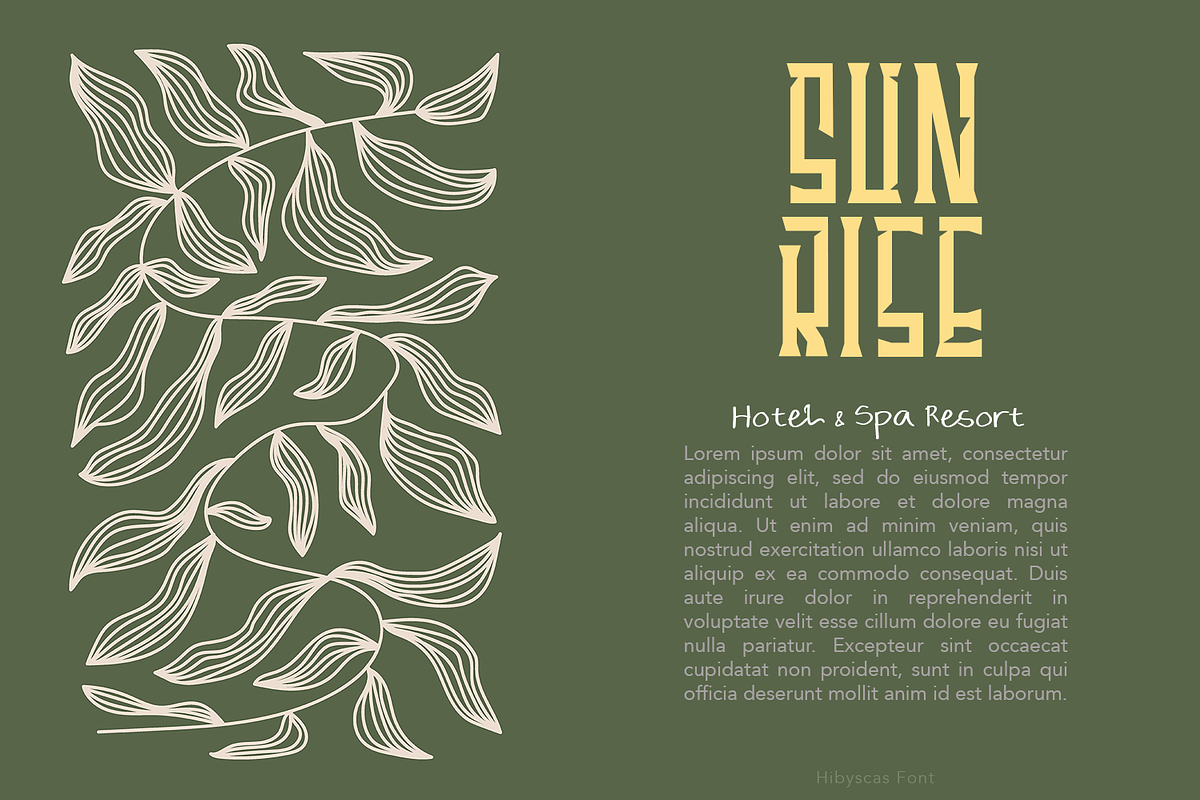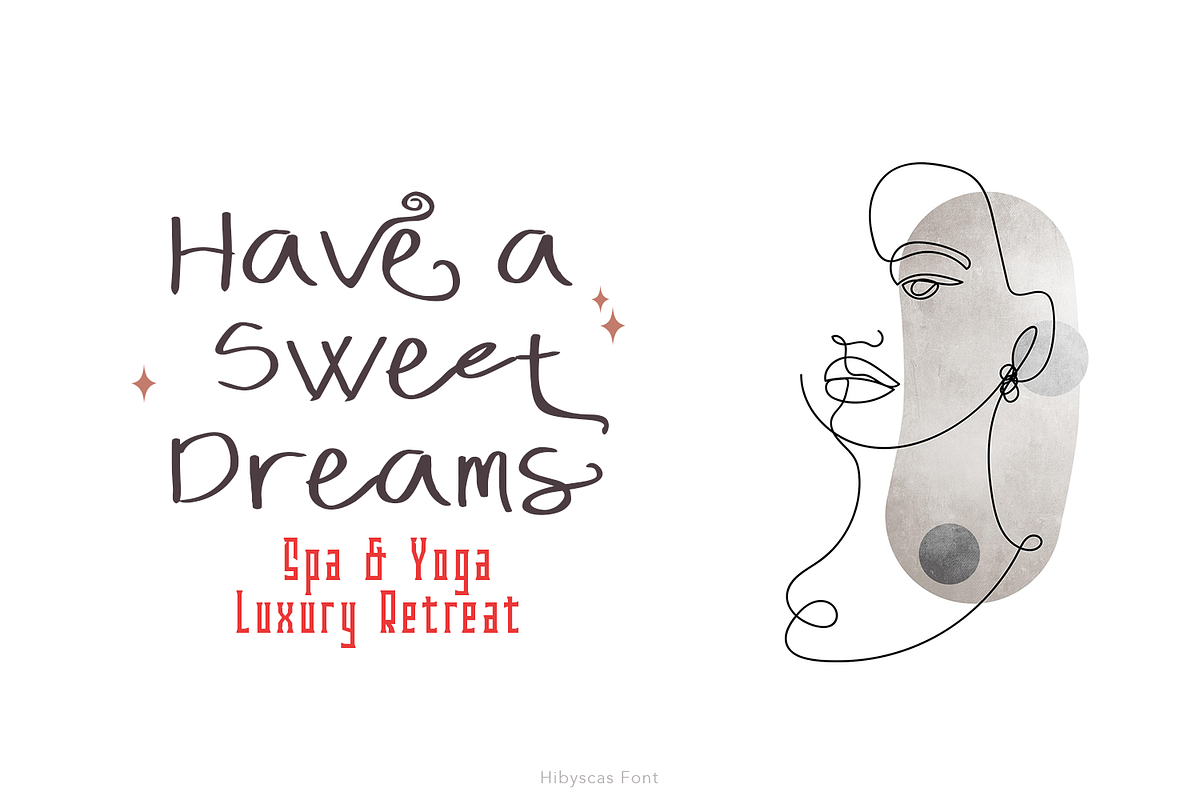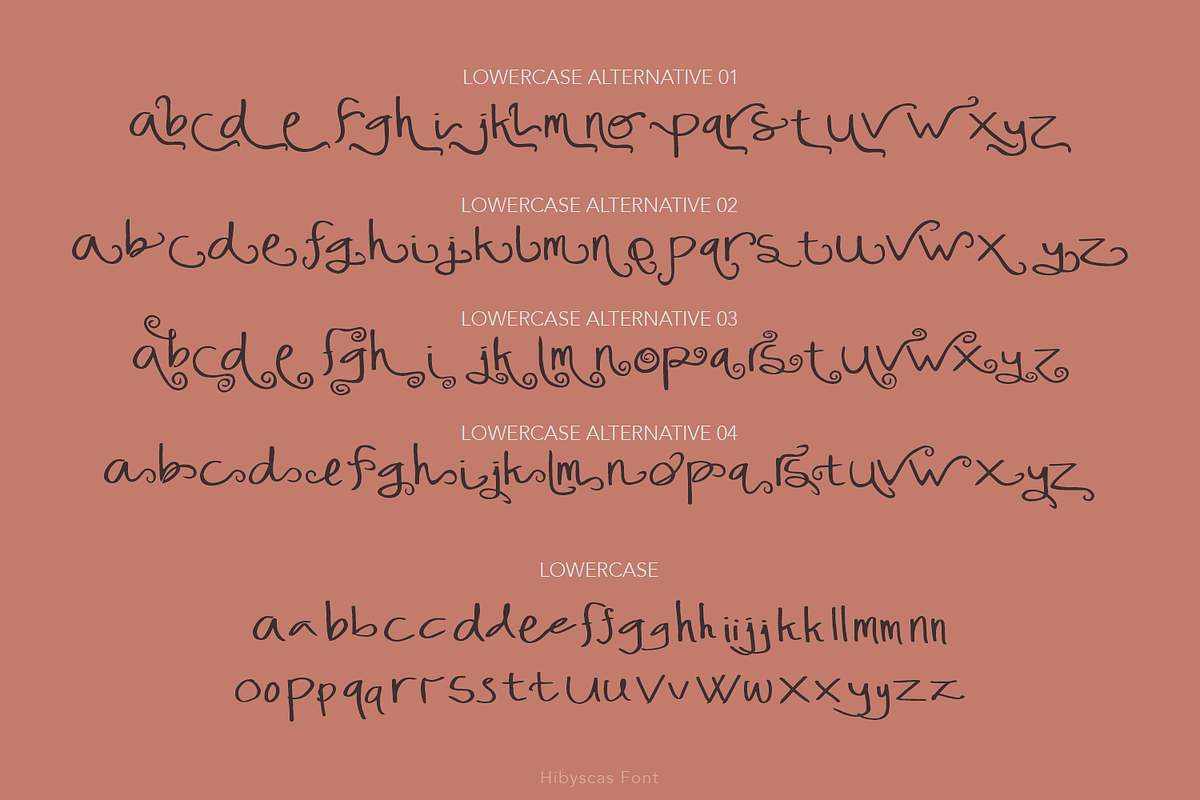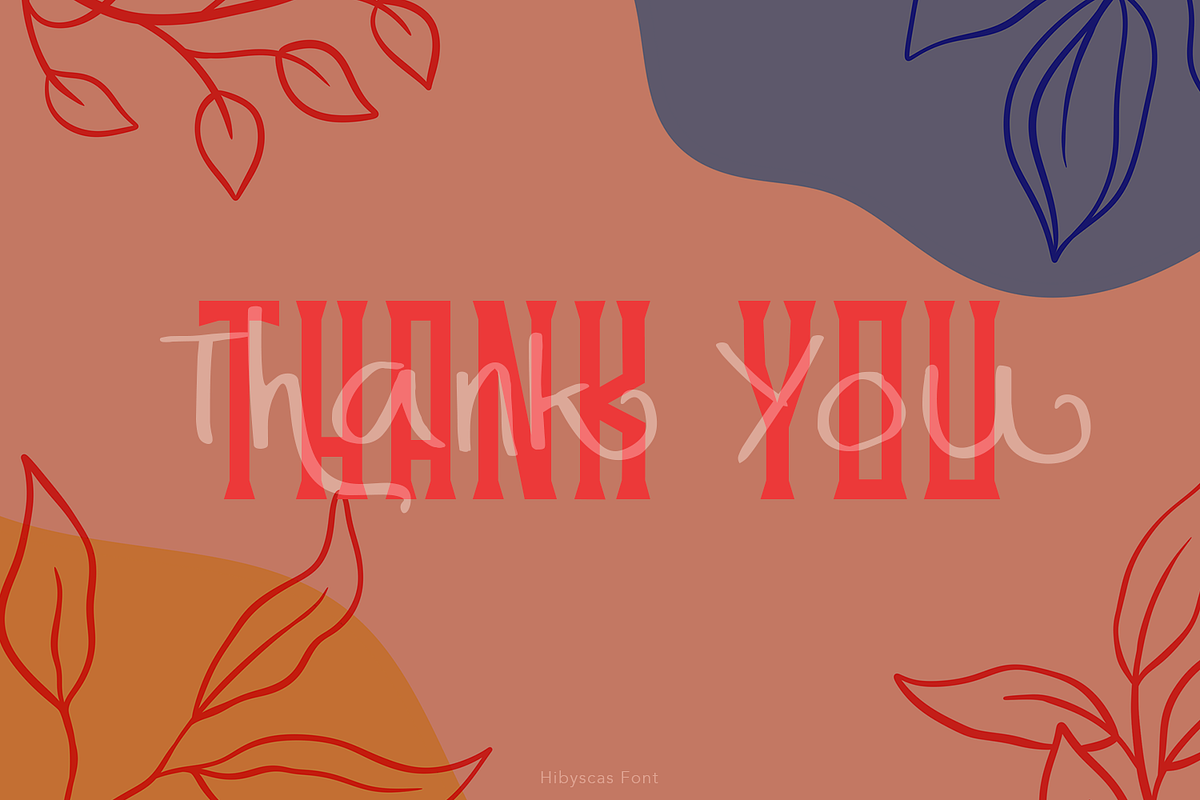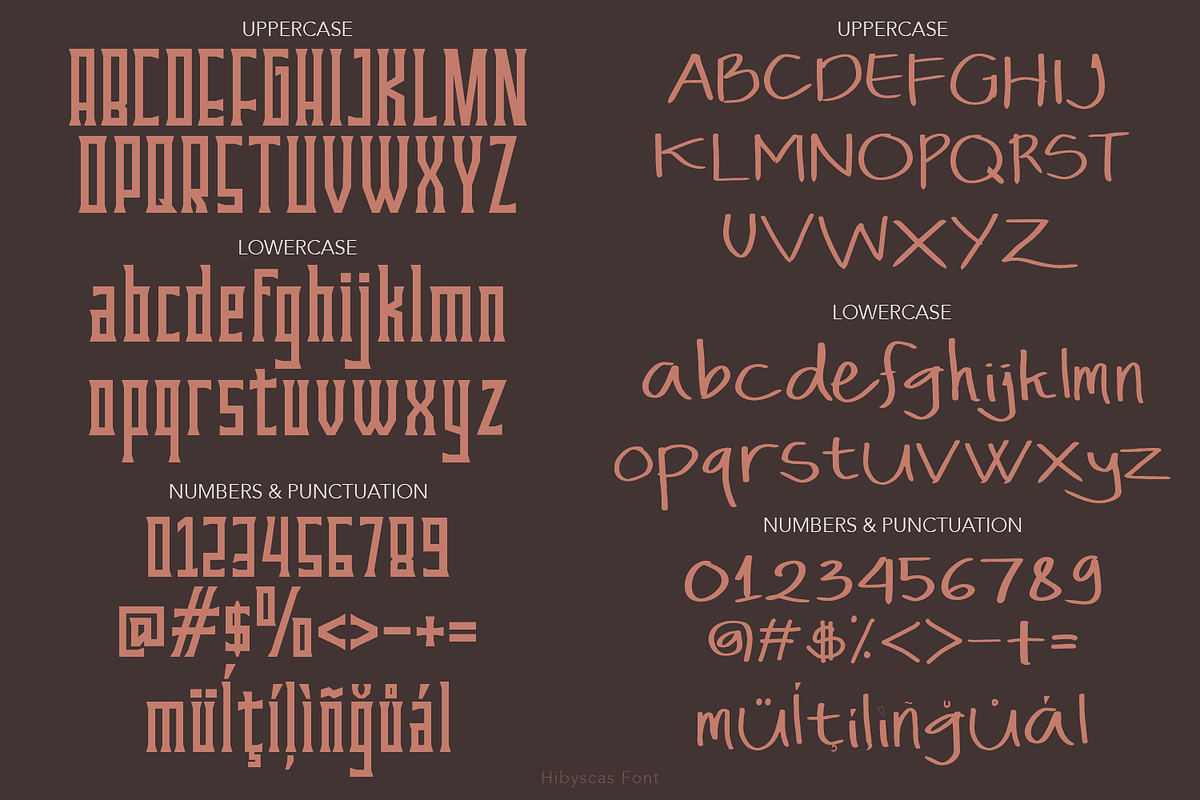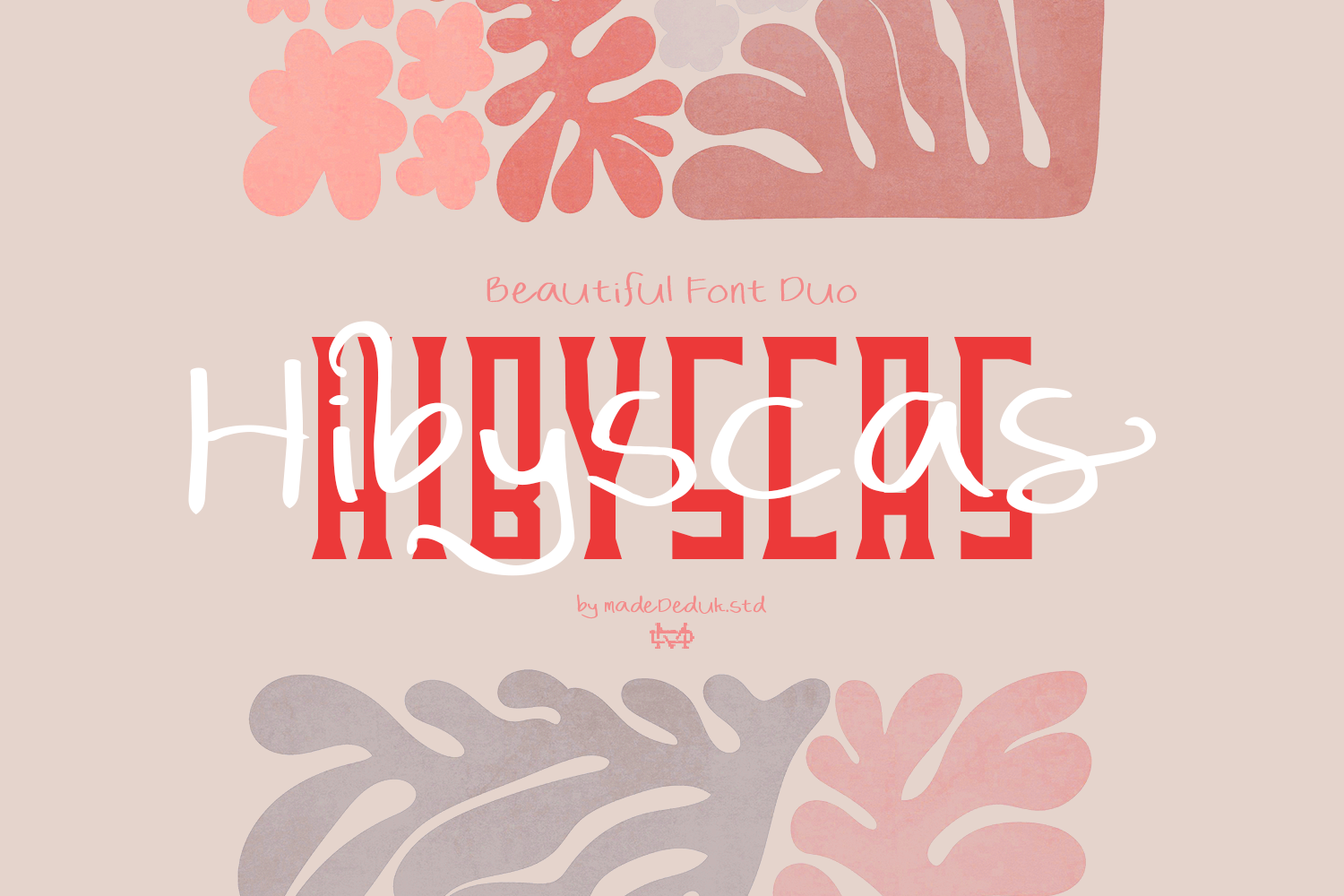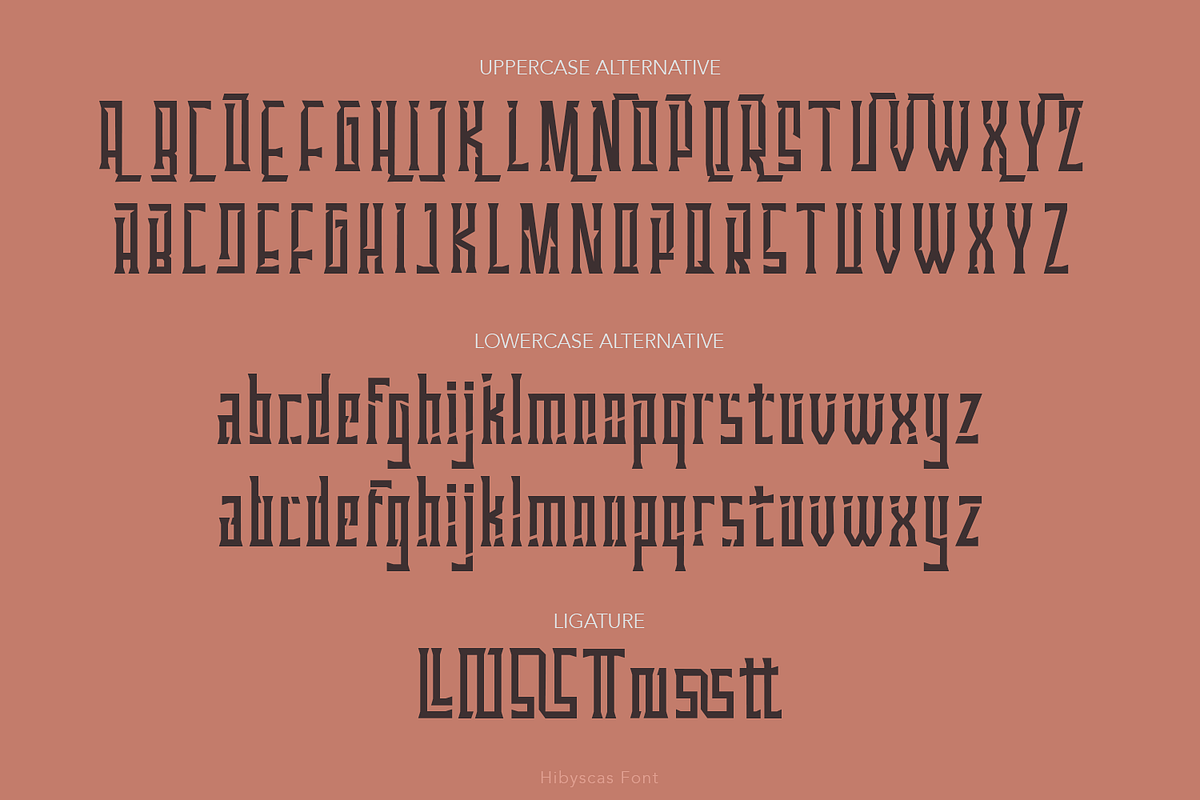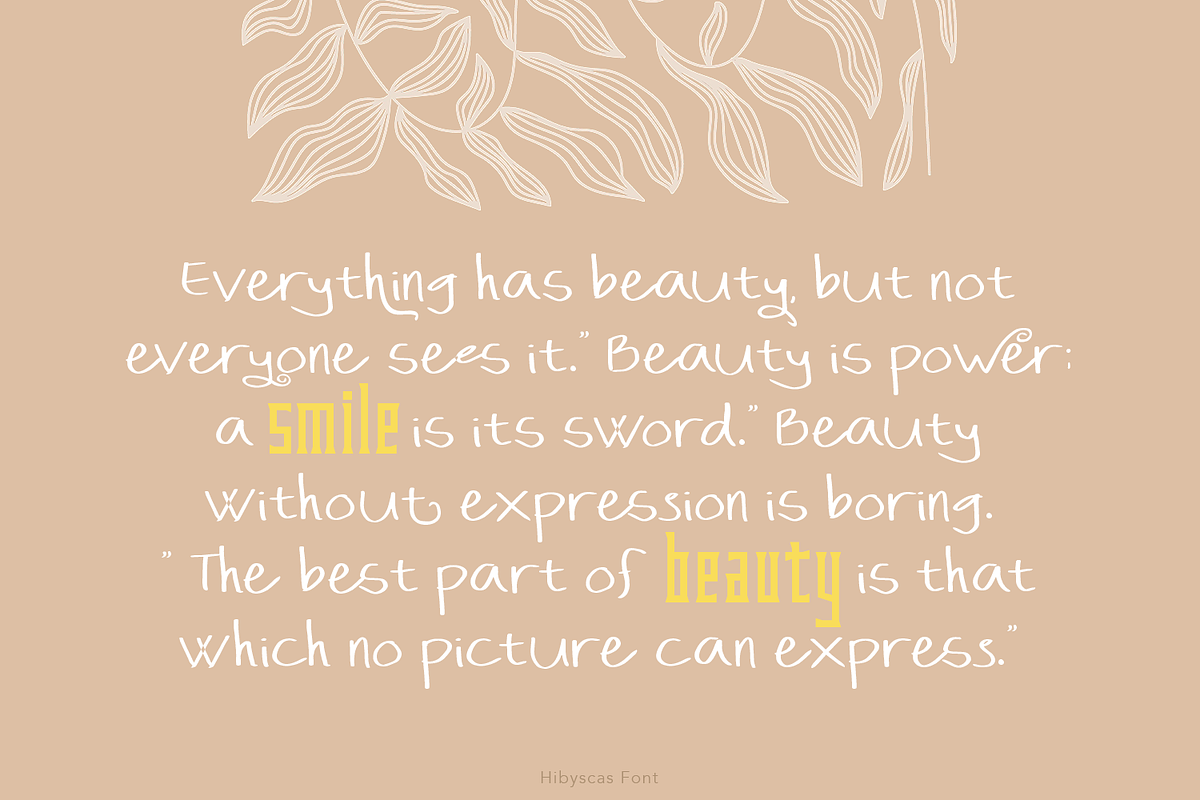
Hibyscas Font Duo
Hibyscas font duo is a strong serif font that comes with a brush script font that makes for a very harmonious pairing. The script comes with a large number of alternative style and ligatures that give you several options for your designs. This is a very versatile font that works well in both large and small sizes. This font is perfect for branding, web titles, logos, quotes, movie titles, wedding invitation and more.